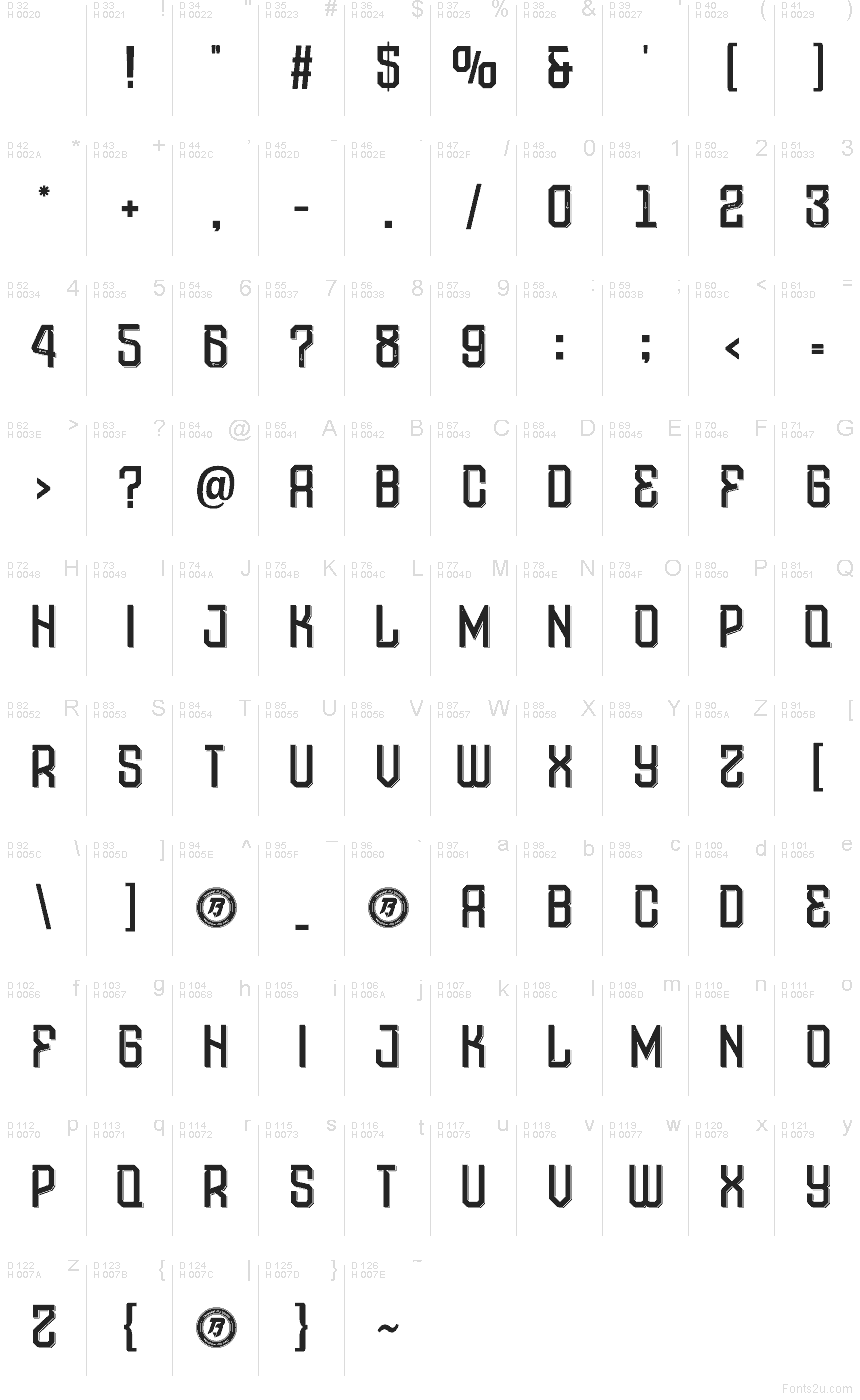
Eindhoven Personal Use XIII
Eindhoven XIII font by Muhammad Afif Ersya of Trequartista Studio is a free techno font with a slick, circuit-like outline that feels cut from metal. Its squared curves and clean, inky channels create a steady rhythm that reads futuristic without turning messy. The narrow proportions keep long words compact, while the crisp corners give every line a sharp, engineered confidence.
Using Eindhoven XIII, you’ll get bold results on gaming logos, sci‑fi posters, esports banners, tech event titles, UI hero headings, album covers, and YouTube thumbnails. This free font shines when you give it breathing room-try a little extra letter spacing and set it large so the inner lines stay clear. Pair it with a plain geometric sans for body copy to keep the vibe modern and readable.